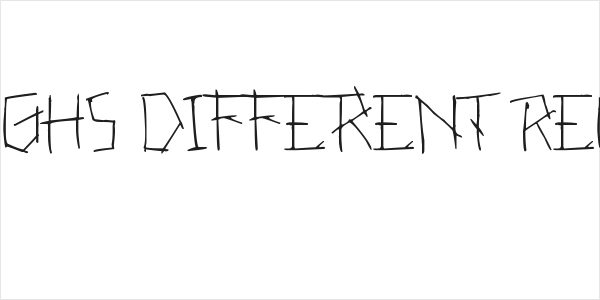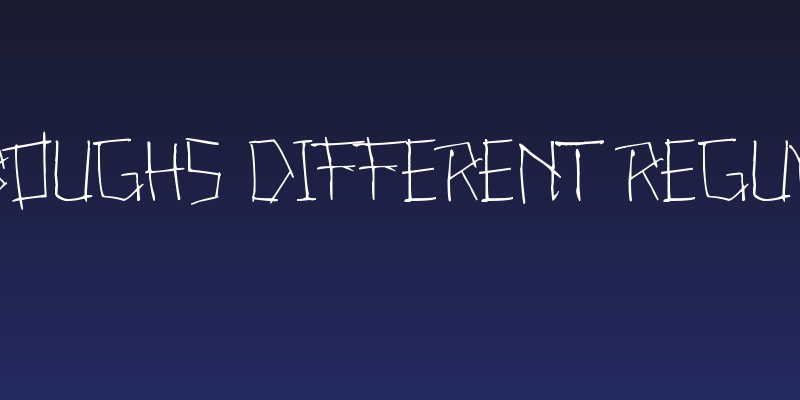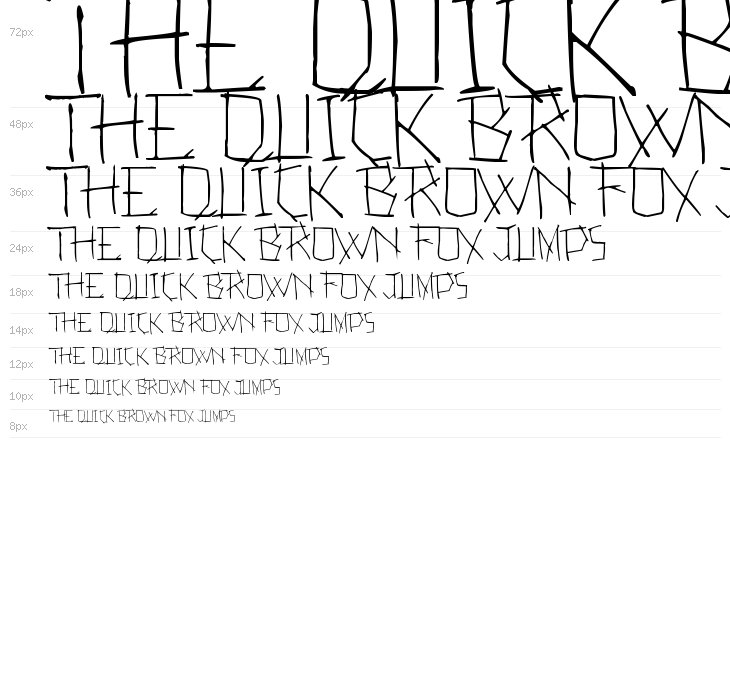
24boughs Different Regular Font
24boughs Different Regular Description
This font features a unique, hand-drawn style that resembles twigs or branches, giving it a rustic and organic feel. The characters are composed of irregular, angular lines that create a sense of movement and texture. Each letter and number is distinct, with varying line thicknesses that add to the font's natural, handcrafted appearance. The special characters maintain this aesthetic, enhancing the overall cohesive look. This font is perfect for projects that require a touch of nature or a whimsical, artistic vibe.
| Proposed Projects | Ideal for nature-themed designs, artistic projects, invitations, and branding that seeks a handcrafted touch. |